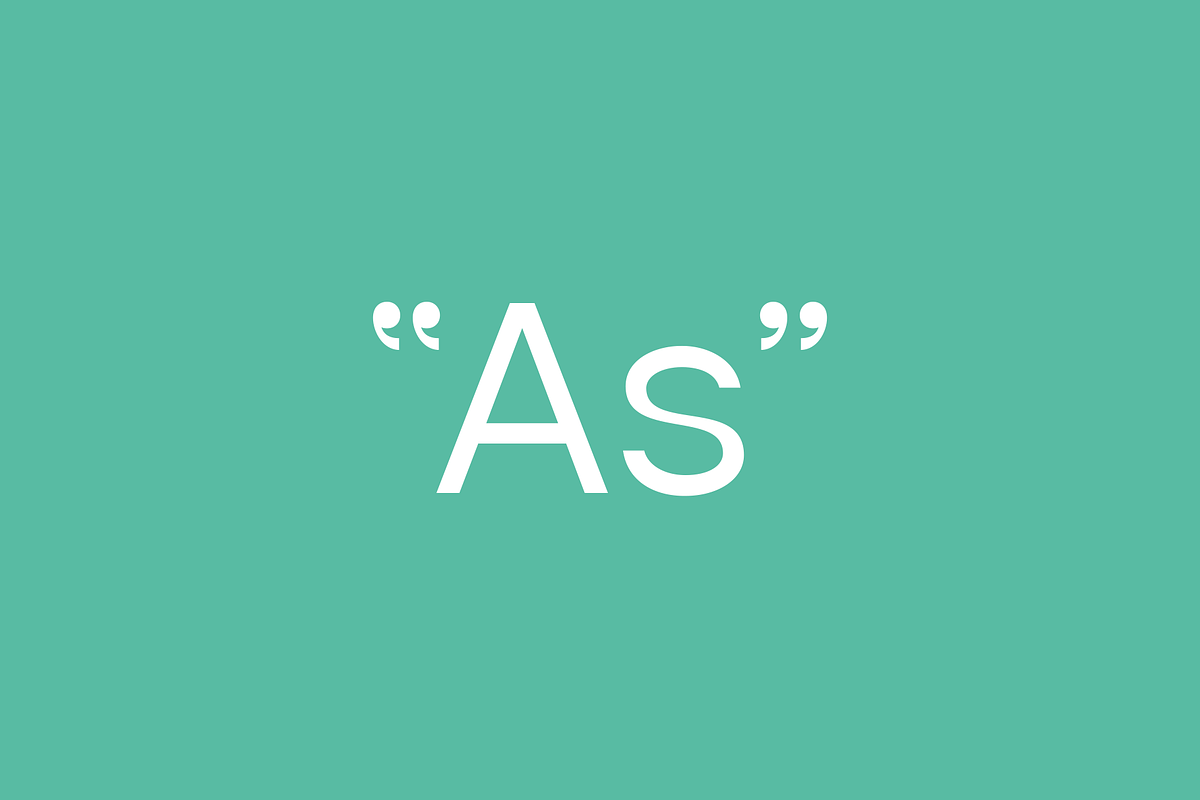
Aspirat Typeface Free Download
Aspirat Typeface Free Download is a modern and elegant sans-serif font designed to elevate your design projects. With its clean lines, smooth curves, and contemporary appeal, this typeface is perfect for minimalistic logos, editorial designs, branding, website content, and print materials. Its versatility and professional look make it an excellent choice for a wide range of creative applications.
Using the Aspirat Typeface Free Download adds a sleek, refined edge to your work. Whether you're designing a modern website, a corporate brochure, or a stylish logo, Aspirat brings clarity, sophistication, and readability to your designs.